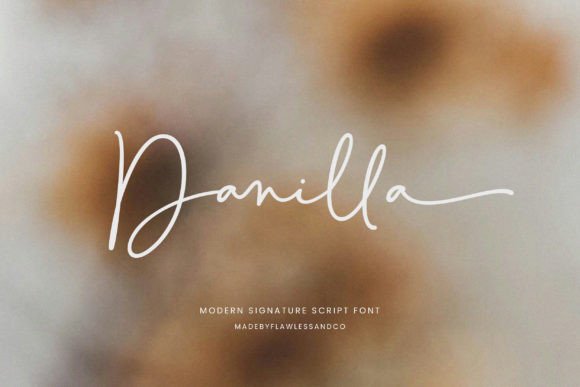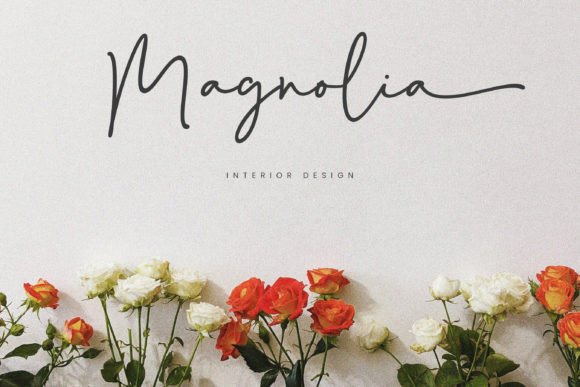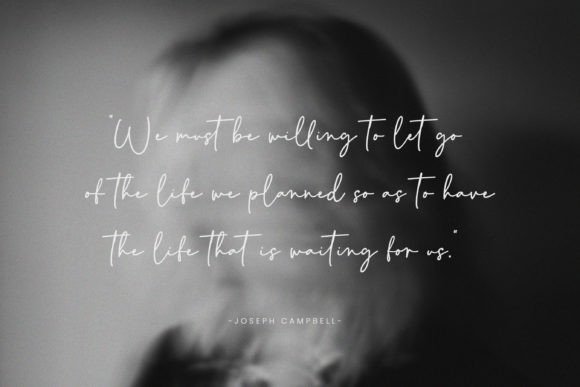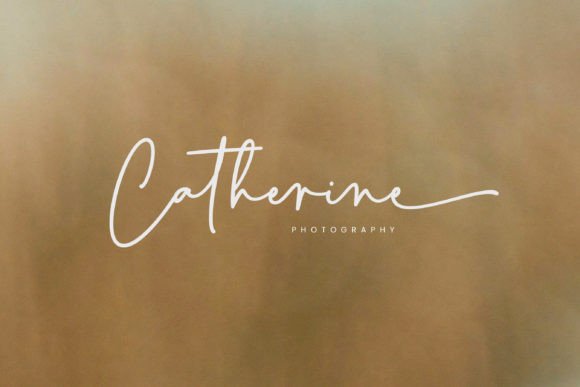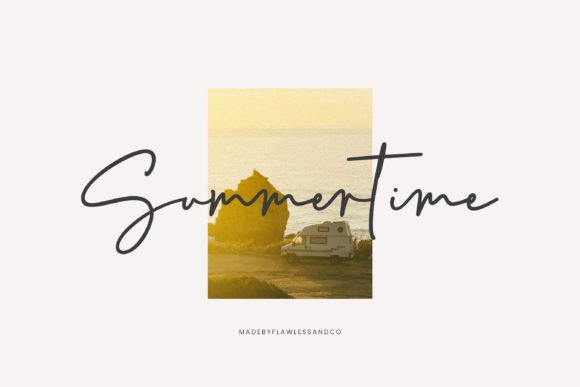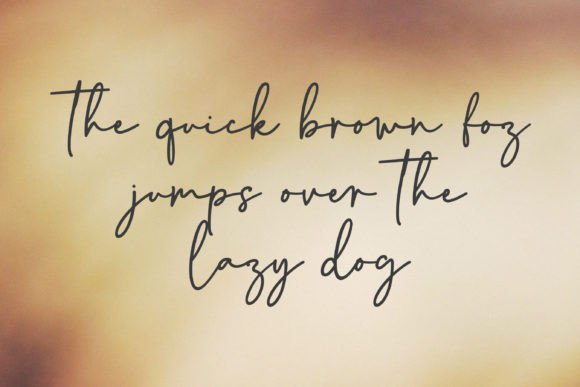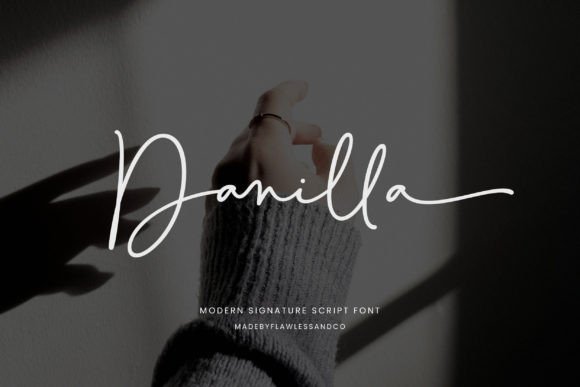
Elevate Your Designs with Danilla Font: The Ultimate Modern Signature Script
In the world of typography, a good font can make all the difference in elevating your designs from ordinary to extraordinary. If you’re a designer, crafty DIY enthusiast, or social media influencer looking to add a touch of elegance and sophistication to your projects, look no further than the Danilla Font. This modern signature script font is the perfect addition to any design, whether it’s branding, invitations, social media graphics, or any other creative project.
What is Danilla Font?
Danilla is a beautifully crafted modern signature script font that exudes elegance and sophistication. With its flowing curves and stylish flourishes, Danilla adds a touch of personal flair to any project. This font is perfect for designers and crafters who want to add a level of refinement and luxury to their designs.
Key Features of Danilla Font
- Modern Signature Script: Danilla is a modern take on traditional signature script fonts, with a fresh and contemporary feel.
- Elegant and Sophisticated: The font’s flowing curves and stylish flourishes give it an air of elegance and sophistication, perfect for high-end designs.
- Versatile: Danilla can be used for a wide range of projects, from branding and invitations to social media graphics and more.
- Easy to Read: Despite its elegant and cursive nature, Danilla is easy to read, making it perfect for body text and headlines.
Uses for Danilla Font
Danilla Font is perfect for a wide range of design projects, including:
- Branding: Use Danilla to create elegant and sophisticated logos, business cards, and letterheads.
- Invitations: Add a touch of luxury to your wedding invitations, birthday party invites, and other special occasion cards.
- Social Media Graphics: Use Danilla to create eye-catching social media graphics, including Facebook and Instagram posts, and Twitter headers.
- Packaging: Add a level of sophistication to your product packaging with Danilla.
Benefits of Using Danilla Font
By using Danilla Font in your designs, you’ll enjoy a range of benefits, including:
- Unique and Memorable: Danilla’s unique and elegant design will help your projects stand out and be remembered.
- Professional and Polished: Danilla’s sophisticated design gives your projects a professional and polished feel.
- Easy to Pair: Danilla pairs well with a range of other fonts, making it easy to create a cohesive design.
Tips for Using Danilla Font
To get the most out of Danilla Font, follow these tips:
- Use it Sparingly: Danilla is a elegant and sophisticated font, so use it sparingly to avoid overwhelming your design.
- Pair it with a Sans-Serif Font: Pair Danilla with a sans-serif font, such as Arial or Helvetica, to create a cohesive and balanced design.
- Experiment with Colors: Danilla looks great in a range of colors, so experiment with different colors to find the perfect fit for your design.